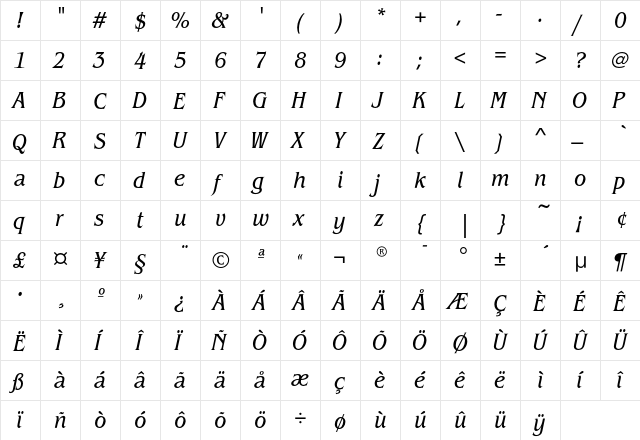
BenguiatEF-BookCondensedIta Regular
Design Context for BenguiatEF-BookCondensedIta Typeface
BenguiatEF-BookCondensedIta offers clean, dependable letterforms without strong stylistic allegiance, making it a practical choice for designers who need flexibility. The condensed width makes it efficient for tight spaces without sacrificing legibility.